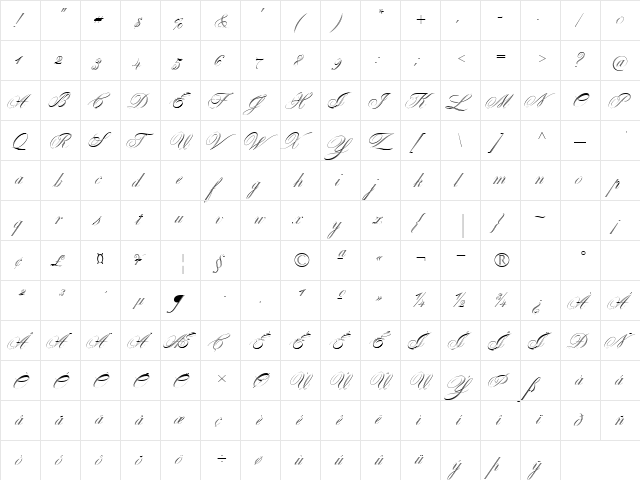
Waddy One Twenty Four Script Regular
Design Context for Waddy One Twenty Four Script Typeface
Waddy One Twenty Four Script brings a calligraphic fluidity to the page — its connecting strokes and expressive curves give it an unmistakably human quality.
Font Pairing: Combine Waddy One Twenty Four Script with a simple geometric sans for maximum contrast — the tension between flowing curves and clean structure is a classic typographic pairing.
Pro Tip: Pair Waddy One Twenty Four Script with a clean sans-serif for supporting text. The contrast between fluid script and geometric structure creates an elegant typographic hierarchy.